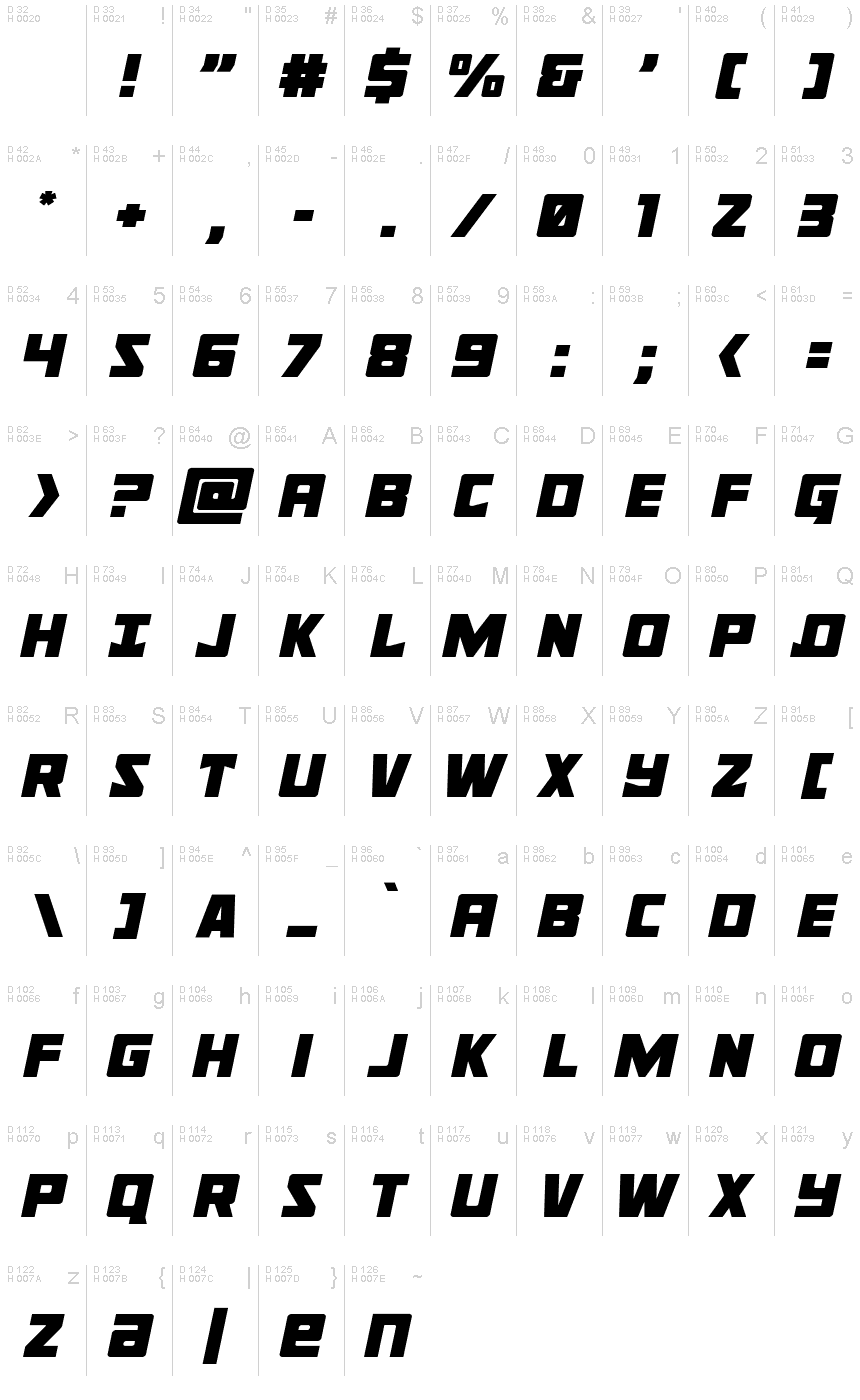
Tower of Silence Expanded Ital
Tower of Silence Expanded Italic, from the imaginative minds at Iconian Fonts, is a display font that commands attention. Its extra-bold, techno style exudes an air of futuristic sophistication, perfect for captivating titles and standout logos.
This member of the Tower of Silence family brings a unique blend of angular precision and expansive flair to your design arsenal. With its semi-expanded width, it strikes an imposing figure that's both authoritative and intriguingly elegant.
Whether you're crafting bold advertisements, immersive game interfaces, or innovative branding materials, Tower of Silence Expanded Italic is engineered to elevate your project with its distinctive presence.